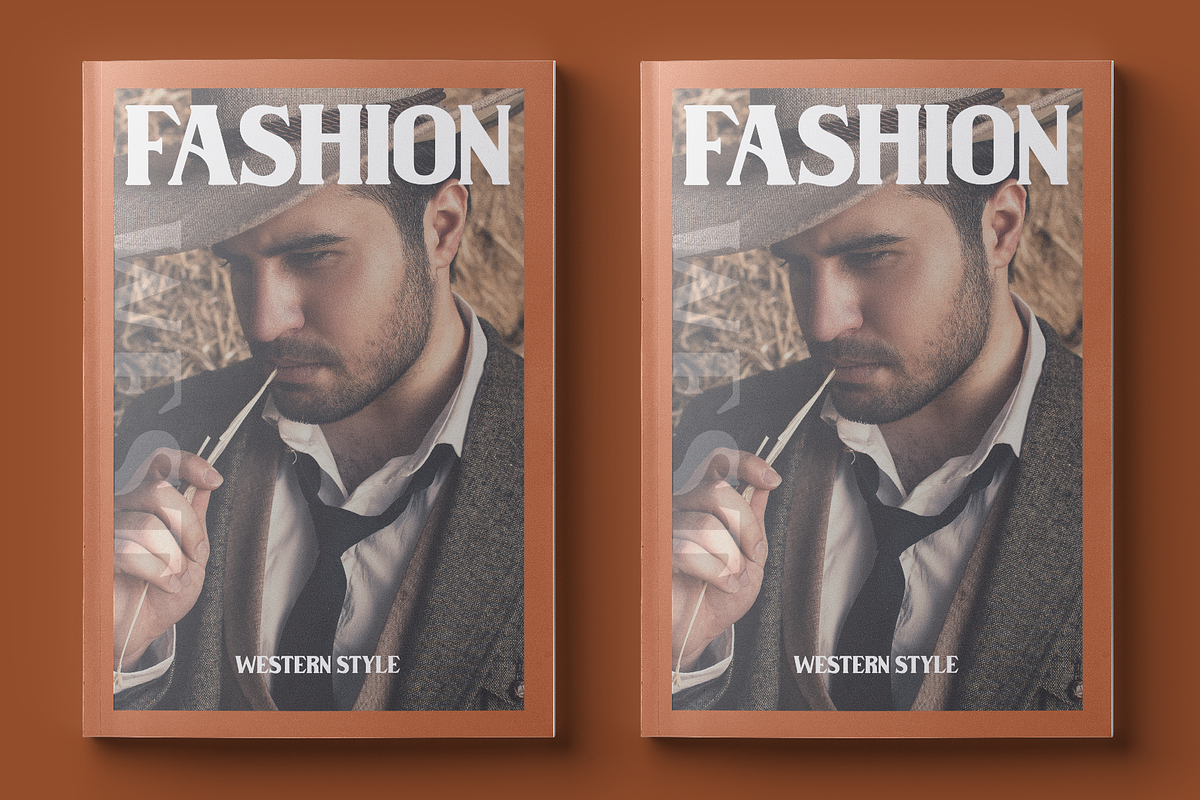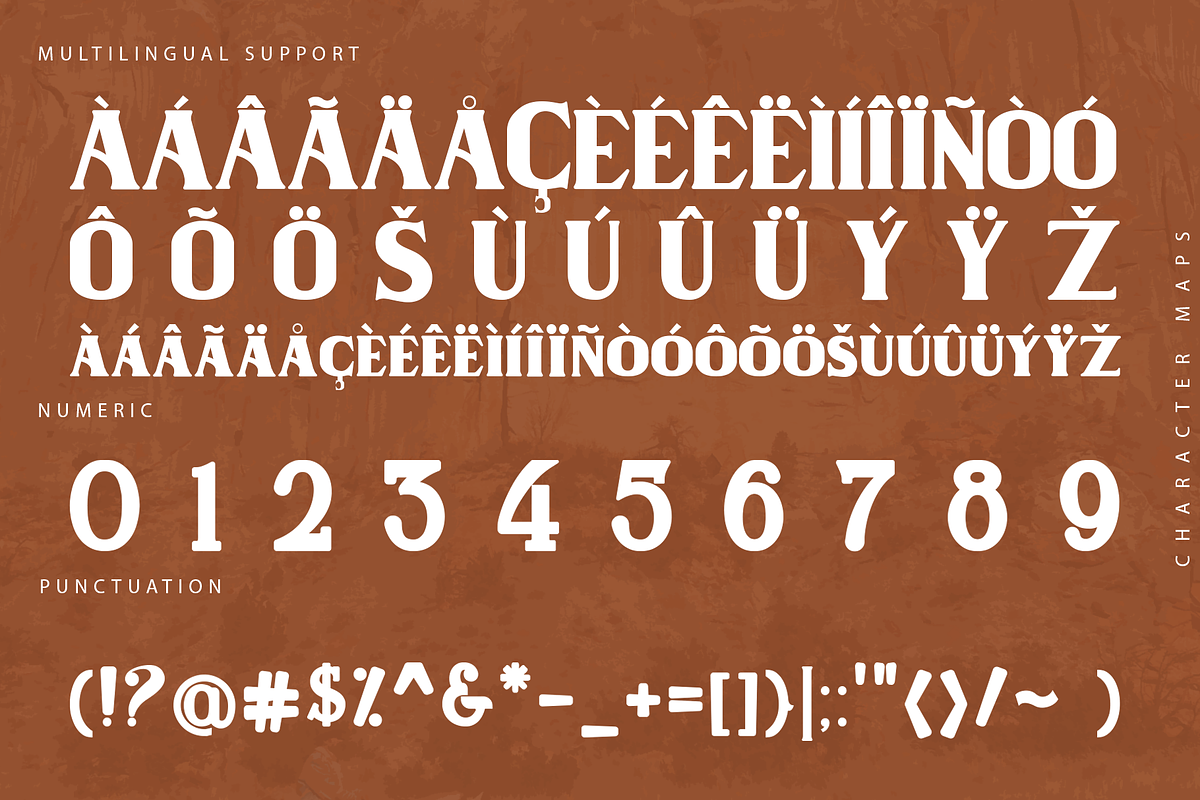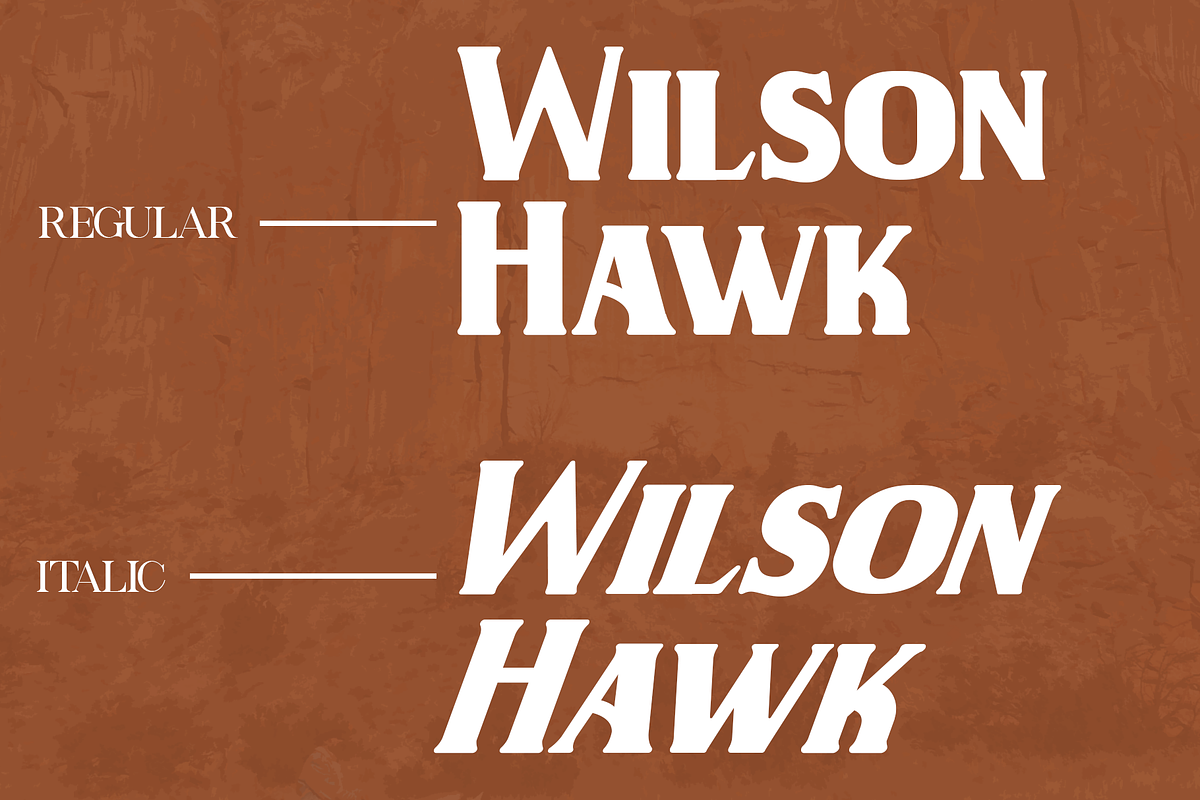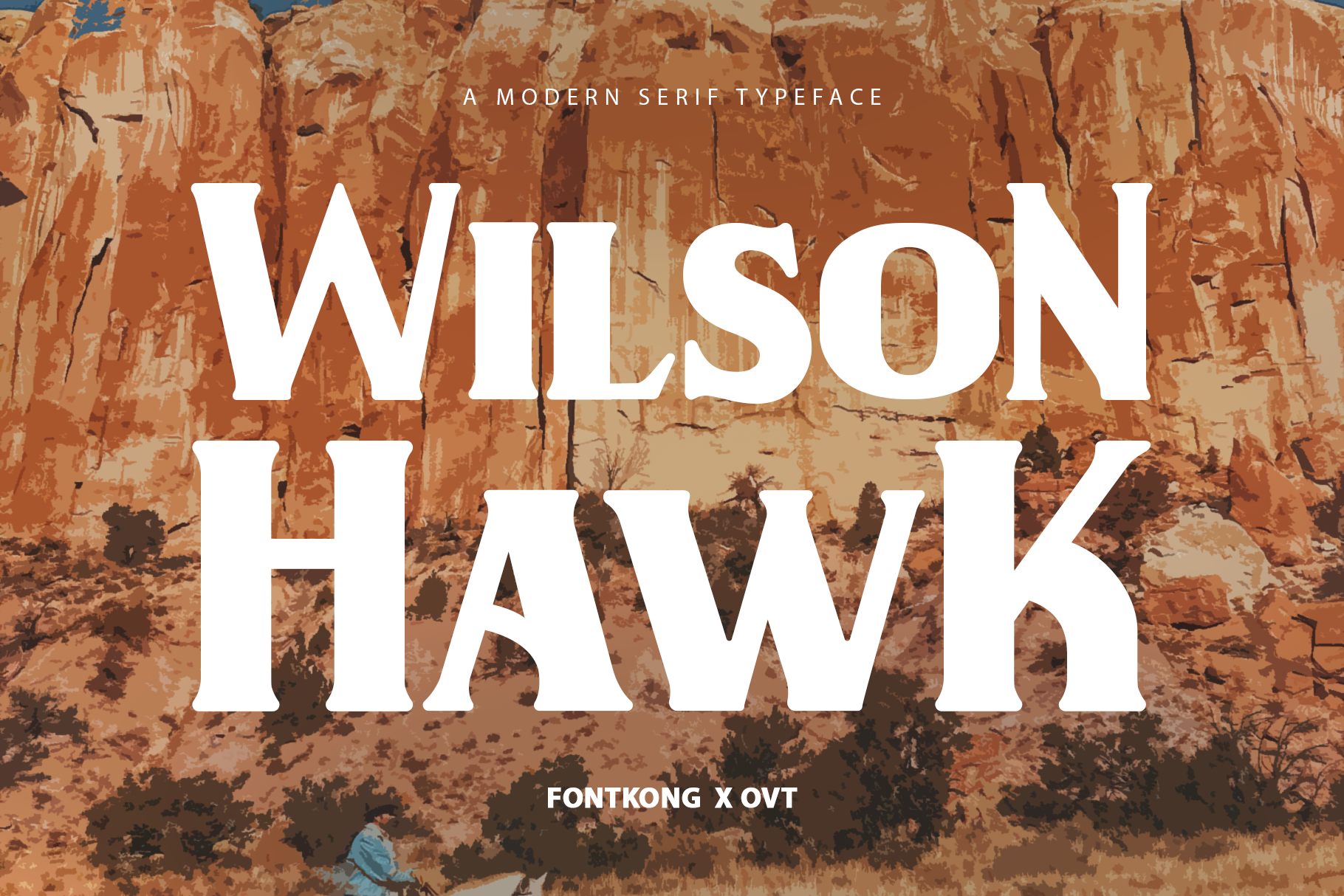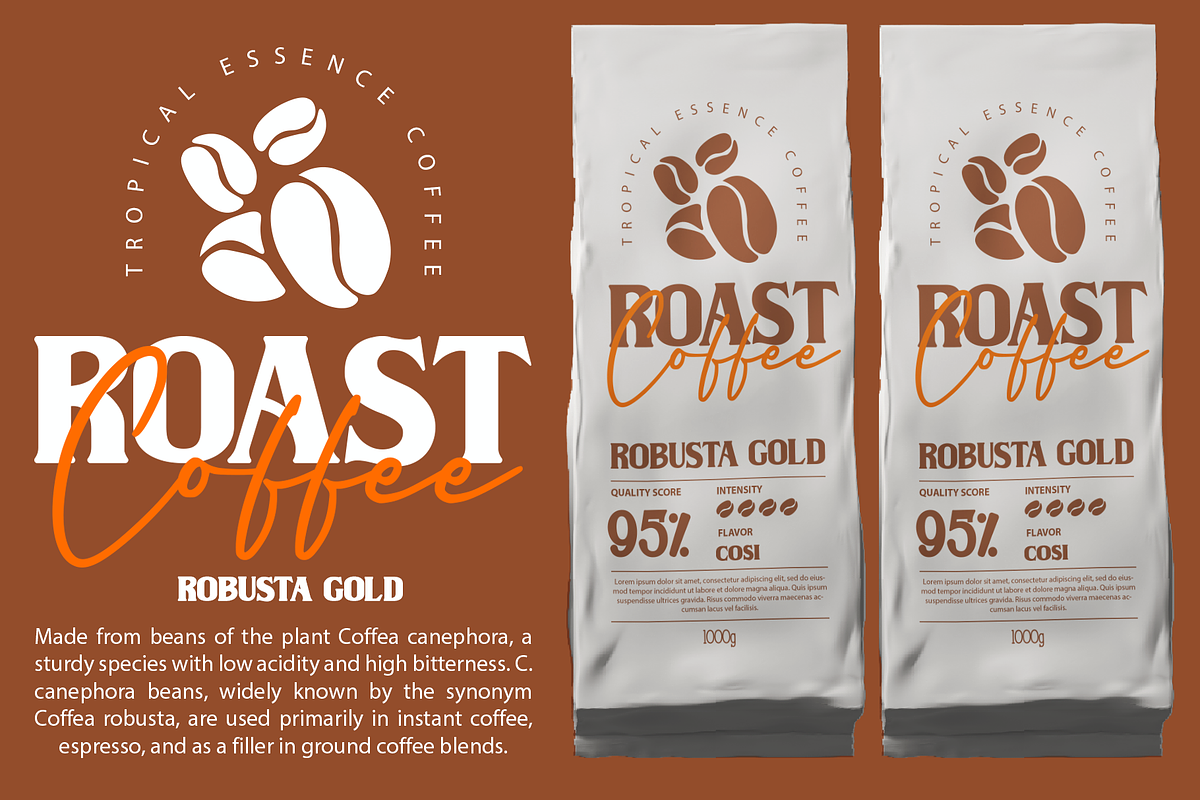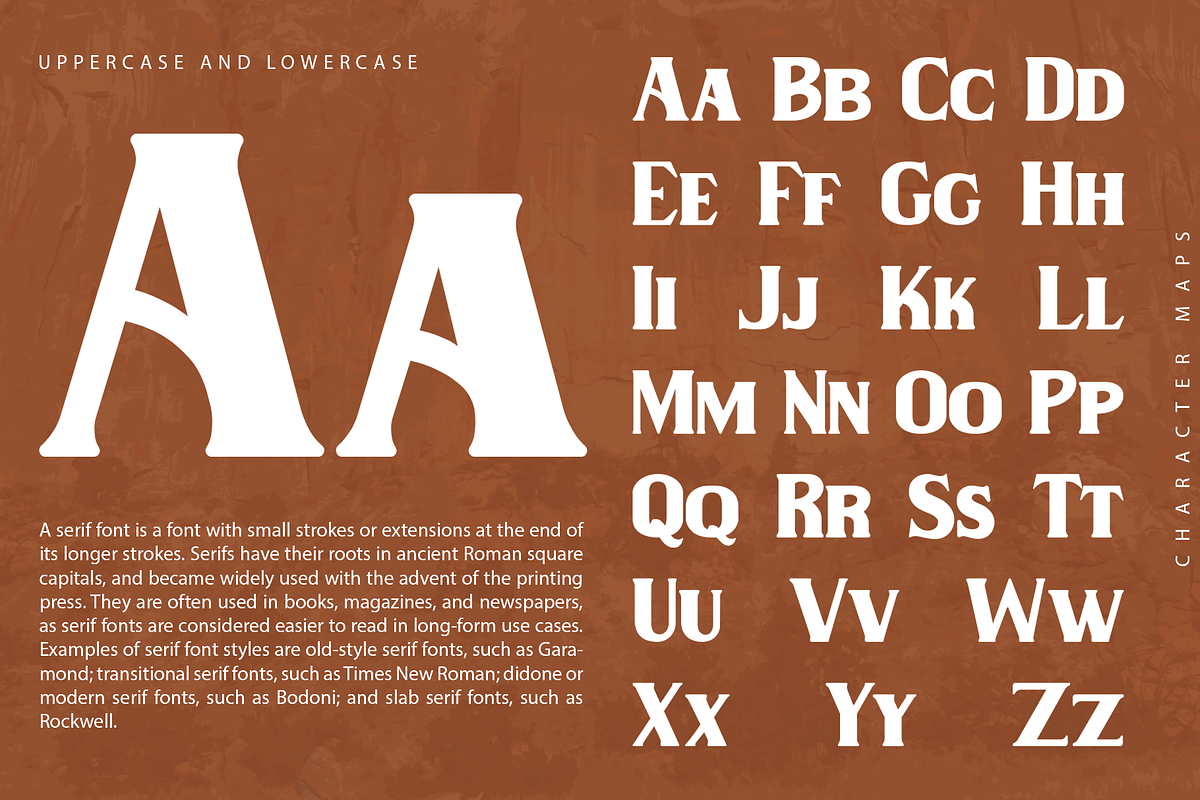
Wilson Hawk - Modern Serif Typeface
Introducing "Wilson Hawk," a modern serif typeface that seamlessly blends timeless elegance with contemporary design. Perfect for designers seeking a versatile font that exudes sophistication and style, Wilson Hawk features clean lines, refined serifs, and a balanced structure that enhances readability and visual appeal.
Wilson Hawk is ideal for a wide range of applications, including editorial layouts, branding, advertising, and web design. Its comprehensive character set includes multiple weights, italics, numerals, punctuation, and extensive language support, ensuring it meets the diverse needs of global creatives.
Whether crafting a stunning logo, an elegant invitation, or a professional presentation, Wilson Hawk elevates your projects with its polished and modern aesthetic. Its unique charm and versatility make it a standout choice for any designer looking to make a lasting impression.